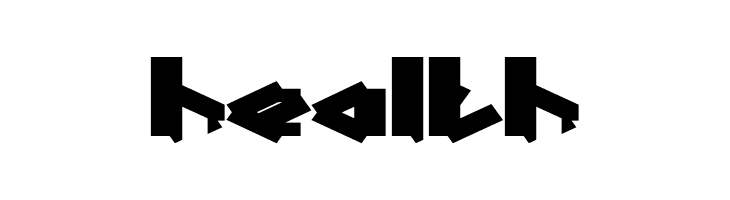
A modern, elegant font with clean lines and slight stroke contrast.
A bold, italicized monospaced font with a modern and professional look.
A futuristic, sleek font with tall, narrow letterforms and a modern aesthetic.
A bold, jagged font ideal for horror-themed designs.
A clean, modern sans-serif font with uniform stroke width and geometric letterforms.
A playful, handwritten font with doodle-like embellishments and a casual style.
A playful, bold font with rounded, bubble-like characters.
A bold, distressed font with a grunge texture and playful lowercase letters.
A bold, modern sans-serif font with excellent readability and balanced proportions.
A bold, vintage serif font with high contrast and dramatic serifs.
A modern, italic sans-serif font with clean lines and balanced proportions.
A lively, modern script font with a playful yet sophisticated style.
A bold, futuristic, and condensed font ideal for modern branding.
A bold, italic font with sharp angles and a modern, dynamic style.
A modern serif font with a light weight and elegant style.
A dynamic, sketch-like handwritten font with fluid, cursive strokes.
A bold, vintage serif font with rounded serifs and a slightly condensed style.
A modern, geometric sans-serif font with clean lines and excellent readability.
A decorative font with whimsical swirls and curves, perfect for creative designs.
A modern, playful font with rounded edges and consistent stroke width.
A decorative blackletter font with intricate, angular strokes and medieval flair.